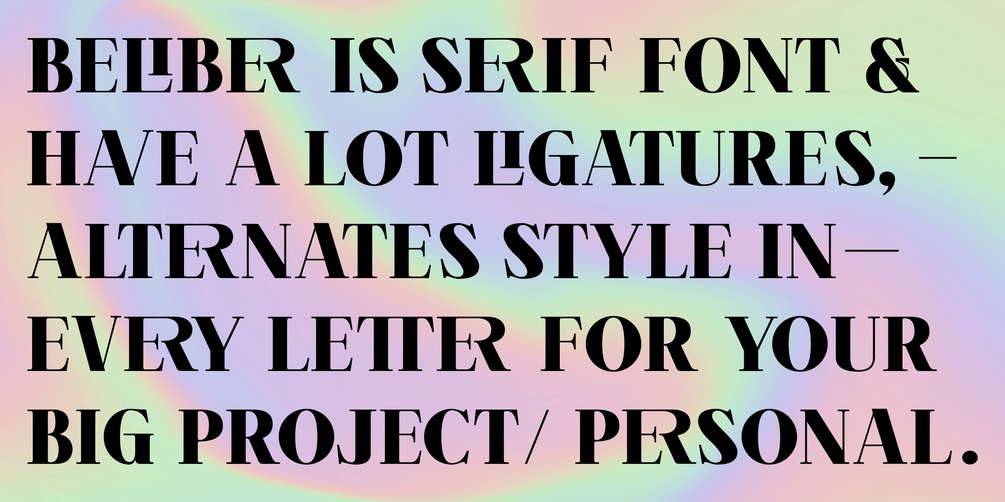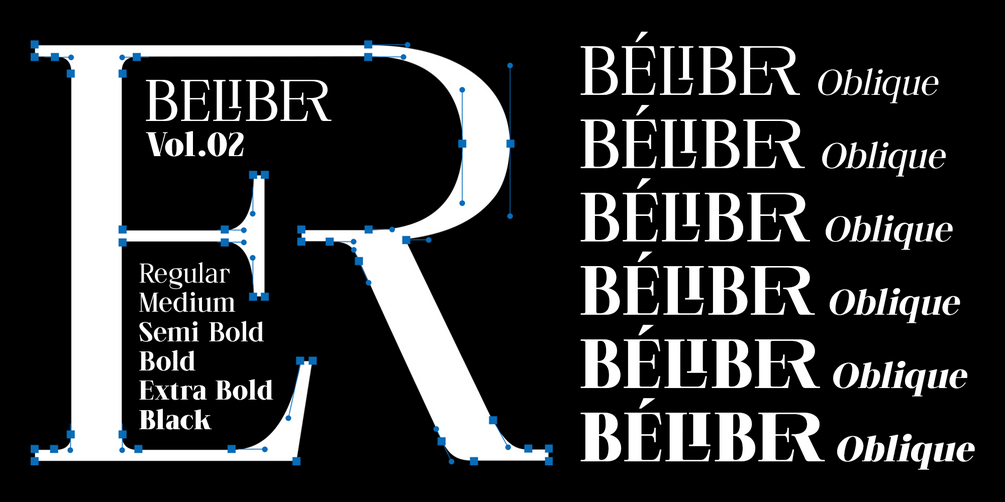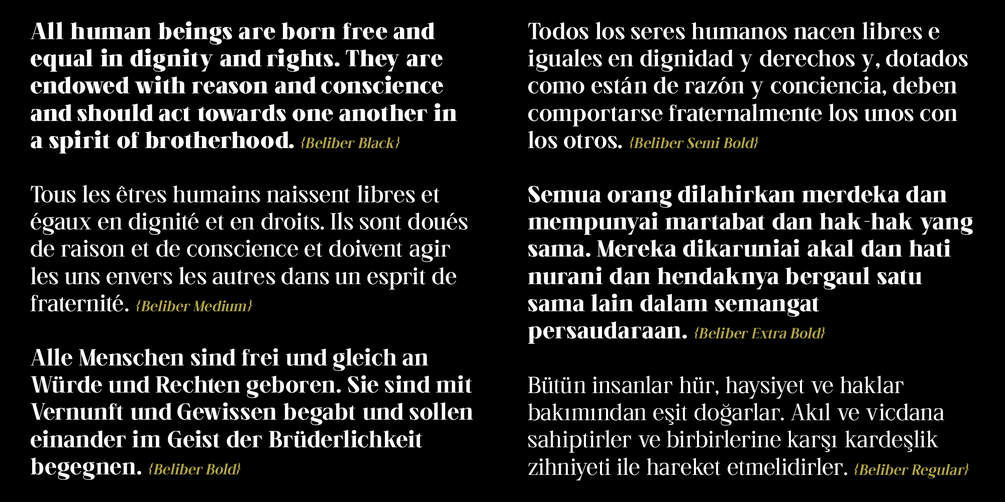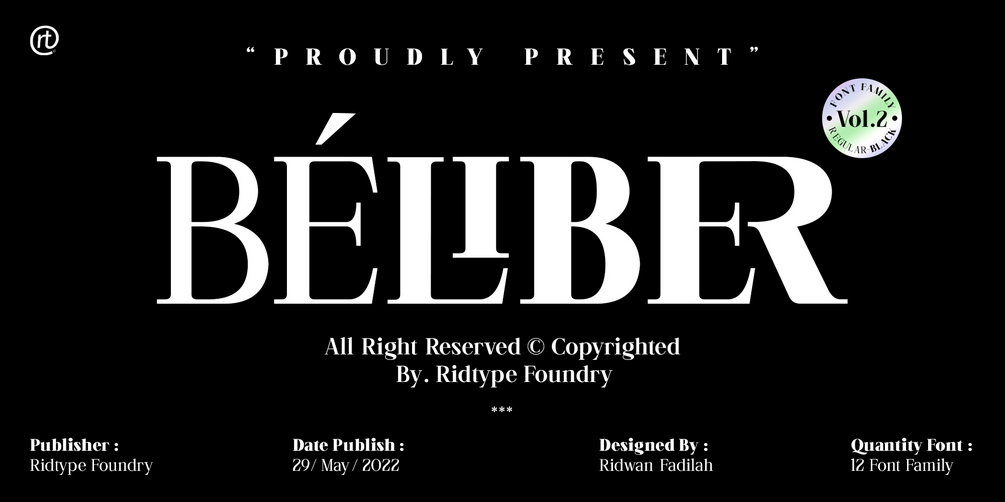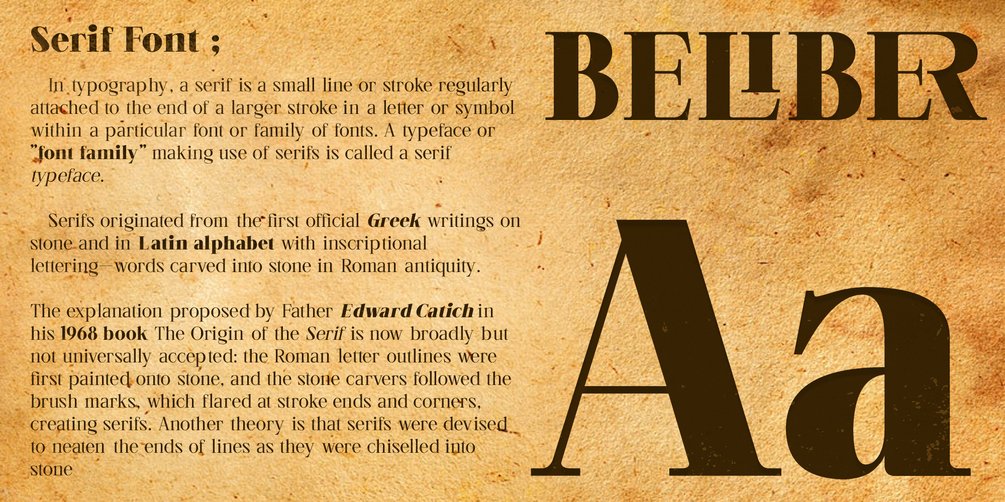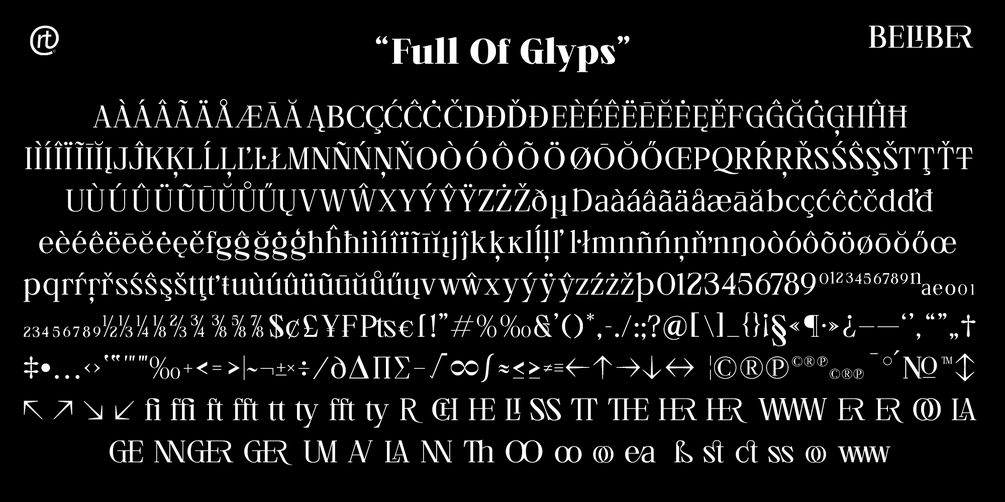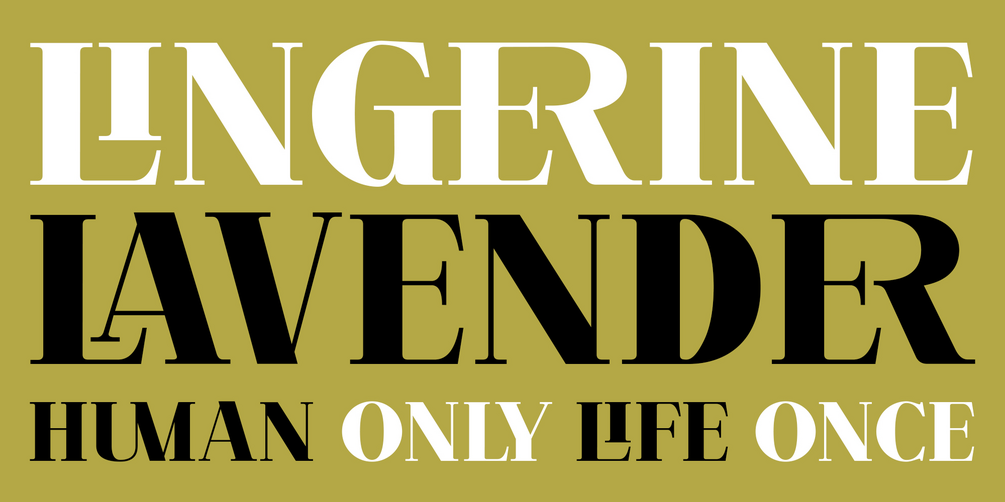
Beliber
Beliber V.2 Has been Update !!
What's New update :
• Additional 12 Type Fonts (Regular - Black w/ Oblique)
• Additional 5+ Ligatures
• 20% Modified every letters
Beliber is a Serif Typeface, this font is specially designed to get the best feel with high quality and is very suitable for use in high-end industrial projects.
This font also has many alternatives and ligatures, as well as other forms of supporting symbols that can be used.